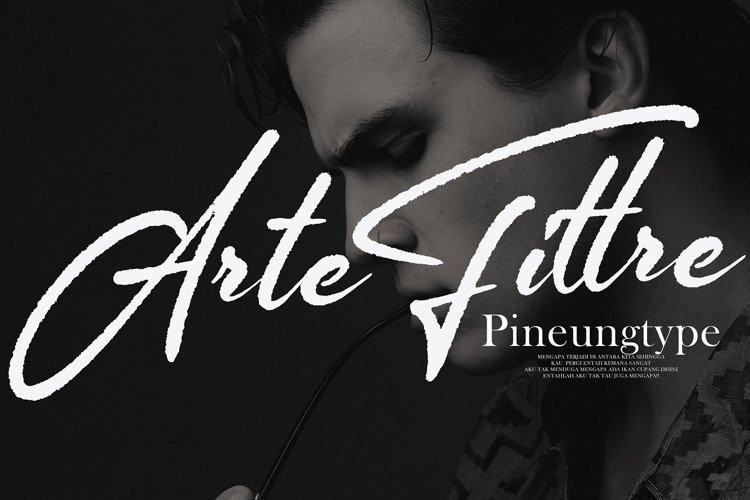
Arte Fittre Font
Arte Fittre font with new style, this font will perfect for many different project ex: quotes, logo, blog header, poster, banding, fashion, apparel, letter, invitation, stationery, etc…